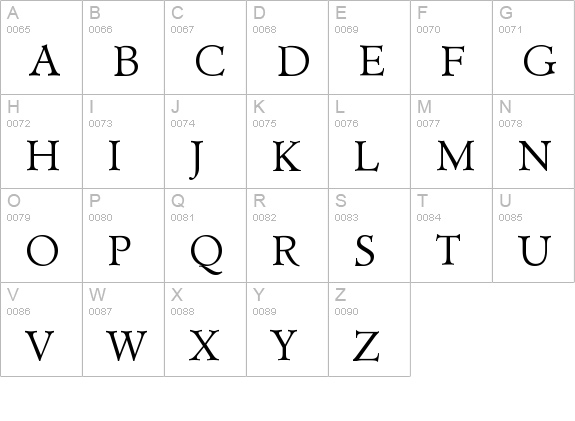
Cleric Light SSi Light is a refined, elegant variant in the Cleric typeface family \xE2\x80\x94 well suited to elegant body text, refined sub-headings, and luxury branding.
Cleric Light SSi Light font is a sleek and elegant typeface that exudes sophistication and modernity. Its clean lines and contemporary style make it perfect for a wide range of design projects, from branding to editorial layouts. The light weight of the font adds a sense of airiness and delicacy to any text, making it easy to read and visually appealing. What's even better is that Cleric Light SSi Light font is available for free download at FontsMarket.com. This means you can easily access this stunning font and use it in your projects without any cost. Don't miss out on this fantastic opportunity to elevate your designs with Cleric Light SSi Light font for free!